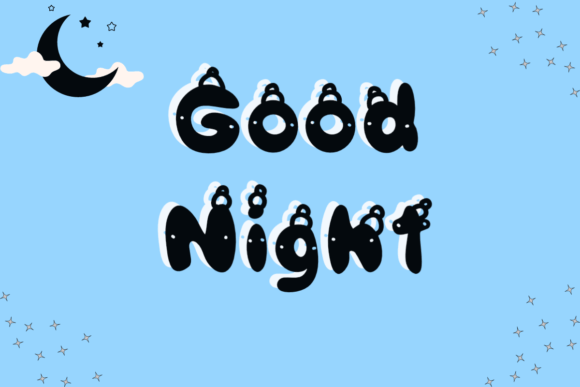
Immerse yourself in a world of enchanting tales and captivating designs with Good Night Font, the epitome of storytelling and imagination. This remarkable display font, meticulously crafted by fonty88, transports you to a realm where words dance with whimsy and creativity takes flight.
Picture this: a book cover that whispers secrets of magical adventures, beckoning readers to embark on a journey beyond their wildest dreams. Good Night Font, with its playful hat decoration and enchanting curves, weaves a spell of wonder and intrigue, captivating audiences from the very first glance.
Let your imagination soar as you explore the endless possibilities of Good Night Font. Its versatile nature makes it the perfect companion for a multitude of projects, from whimsical cards and eye-catching flyers to captivating book titles and vibrant social media posts. Unleash your creativity and transform your designs into masterpieces that ignite imaginations and leave a lasting impression.
With Good Night Font as your trusted storytelling companion, you'll embark on a creative odyssey, leaving a trail of enchantment wherever you go. Its playful charm and boundless versatility will elevate your designs, making them stand out from the ordinary and capturing hearts with their captivating allure.
So, embrace the magic of Good Night Font and let your imagination run wild. Discover the boundless possibilities that await you as you weave tales of wonder, create designs that inspire, and leave an indelible mark on the world. Step into the realm of enchantment and experience the transformative power of Good Night Font today.